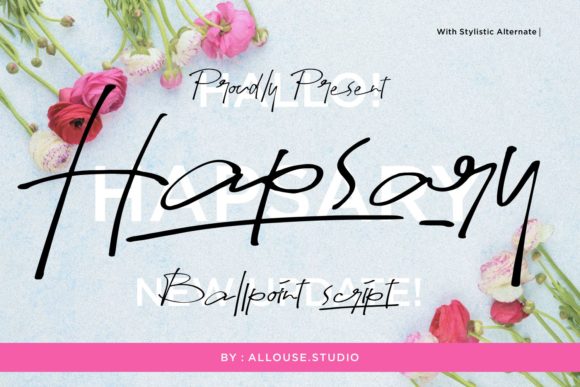
Journey into the realm of captivating calligraphy with Hapsary Font, the enchanting script font that will ignite your designs with a touch of magic. Its meticulously crafted characters, inspired by the gentle flow of handwritten notes, dance across the page with effortless grace.
Immerse yourself in the allure of rotated text, where Hapsary Font truly shines. Its characters effortlessly adapt to any angle, creating captivating headlines, logos, and displays that demand attention. The possibilities are endless as you rotate, tilt, and experiment, unlocking a world of dynamic typography.
Hapsary Font is not merely a font; it's an artistic expression that will elevate your designs to new heights. Its unique and stylish appearance lends itself perfectly to a myriad of creative projects, from heartfelt invitations and elegant branding to captivating social media posts and eye-catching posters.
Indulge in the creative freedom that Hapsary Font offers, and watch as your designs transform into masterpieces that capture hearts and minds. With every stroke and every twist, you'll discover a font that is both versatile and captivating, a true gem in the realm of typography.
Embrace the enchantment of Hapsary Font today, and let your designs shine brighter than ever before.